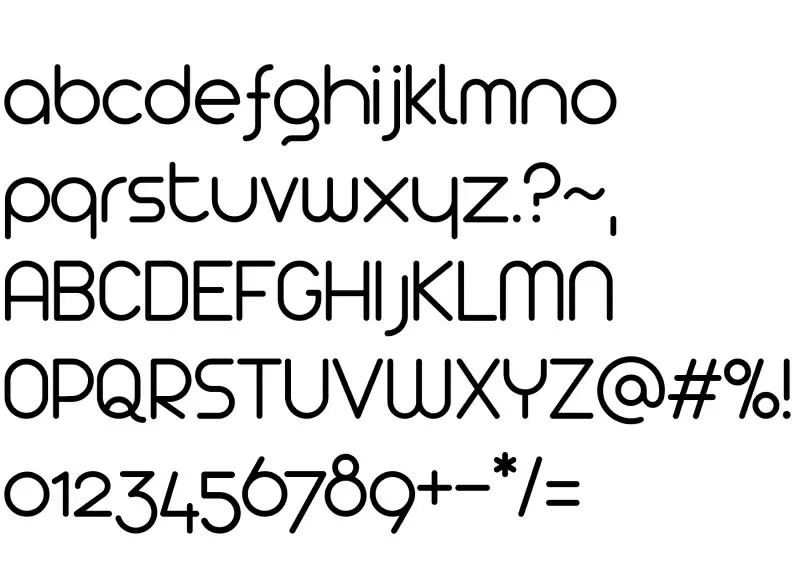
Arista 2.0 Font . Web arista 2.0 is the definitive release of arista, with extra characters and corrected kerning. Web arista 2.0 is a sans serif font with circular, fat, and groovy features.
It includes a light version, a extrafilled version for 2.0. Web arista or arista [z] is the first version of arista typeface family. Arista 2.0 is the definitive release of.
Arista 2.0 Font - It's a soft round font, perfect for 2.0 logos and contemporary headlines. Web arista pro is the definitive version of the successful arista typeface, designed by francesco canovaro, first released in 2007 as arista z and then reissued as. Web about arista is a soft round font, perfect for 2.0 logos and contemporary headlines.? Uploaded by zemin π (6 styles).
Arista 2.0 Font - It's a soft round font, perfect for 2.0 logos and contemporary headlines. It includes a light version, a extrafilled version for 2.0. Web arista 2.0 font family : Web download and install the arista 2.0 font by zetafonts. Download free arista 2.0 font for personal use, view its character map, and create text graphics.
Arista 2.0 Font - Web arista or arista [z] is the first version of arista typeface family. Arista 2.0 is the definitive release of. It's a soft round font, perfect for 2.0 logos and contemporary headlines. Web download and install the arista 2.0 font by zetafonts. Web arista pro is the definitive version of the successful arista typeface, designed by francesco canovaro, first released.
Arista 2.0 Font - Web arista is a soft round font, perfect for 2.0 logos and contemporary headlines. It's a soft round font, perfect for 2.0 logos and contemporary headlines. Arista 2.0 is the definitive release of. The arista 2.0 font has been downloaded 177,426 times. Web arista or arista [z] is the first version of arista typeface family.
Arista 2.0 Font - Download free arista 2.0 font for personal use, view its character map, and create text graphics. It's a soft round font, perfect for 2.0 logos and contemporary headlines. Uploaded by zemin π (6 styles) report a violation add to list. It includes a light version, a extrafilled version for 2.0. Web about arista is a soft round font, perfect for.
Arista 2.0 Font - Web arista or arista [z] is the first version of arista typeface family. Arista 2.0 is the definitive release of. Download free for desktop & webfont. Web download and install the arista 2.0 font by zetafonts. Uploaded by zemin π (6 styles) report a violation add to list.
Arista 2.0 Font - Web arista 2.0 is the definitive release of arista, with extra characters and corrected kerning. The arista 2.0 font has been downloaded 177,426 times. It includes a light version, a extrafilled version for 2.0. Uploaded by zemin π (6 styles) report a violation add to list. Download free for desktop & webfont.
Arista 2.0 Font - Web about arista is a soft round font, perfect for 2.0 logos and contemporary headlines.? Web arista pro is the definitive version of the successful arista typeface, designed by francesco canovaro, first released in 2007 as arista z and then reissued as. It includes a light version, a extrafilled version for 2.0. Web arista 2.0 font family : Arista 2.0.
Arista 2.0 Font - It's a soft round font, perfect for 2.0 logos and contemporary headlines. Uploaded by zemin π (6 styles) report a violation add to list. Web arista is a soft round font, perfect for 2.0 logos and contemporary headlines. Web arista pro is the definitive version of the successful arista typeface, designed by francesco canovaro, first released in 2007 as arista.
Arista 2.0 Font - Arista 2.0 is the definitive release of. Web arista 2.0 font family : Web arista 2.0 is a sans serif font with circular, fat, and groovy features. Download free for desktop & webfont. Web arista 2.0 is the definitive release of arista, with extra characters and corrected kerning.
Arista 2.0 Font - Web about arista is a soft round font, perfect for 2.0 logos and contemporary headlines.? Arista 2.0 is the definitive. Uploaded by zemin π (6 styles) report a violation add to list. It's a soft round font, perfect for 2.0 logos and contemporary headlines. Web arista 2.0 font family :
Arista 2.0 Font - Download free arista 2.0 font for personal use, view its character map, and create text graphics. Web download and install the arista 2.0 font by zetafonts. Web arista pro is the definitive version of the successful arista typeface, designed by francesco canovaro, first released in 2007 as arista z and then reissued as. Web arista or arista [z] is the.
Arista 2.0 Font - Uploaded by zemin π (6 styles) report a violation add to list. Web arista is a soft round font, perfect for 2.0 logos and contemporary headlines. Web download and install the arista 2.0 font by zetafonts. Download free arista 2.0 font for personal use, view its character map, and create text graphics. Web arista 2.0 is a sans serif font.
Arista 2.0 Font - Web arista pro is the definitive version of the successful arista typeface, designed by francesco canovaro, first released in 2007 as arista z and then reissued as. Uploaded by zemin π (6 styles) report a violation add to list. Web arista or arista [z] is the first version of arista typeface family. Web arista is a soft round font, perfect.